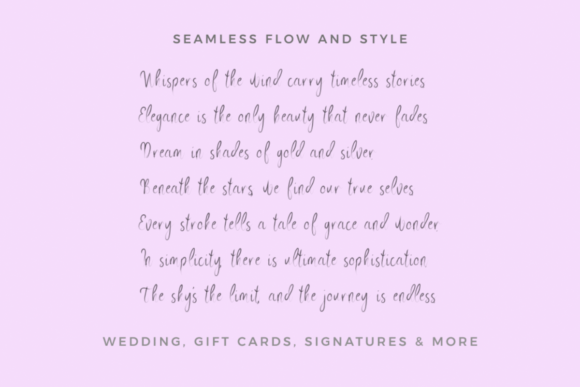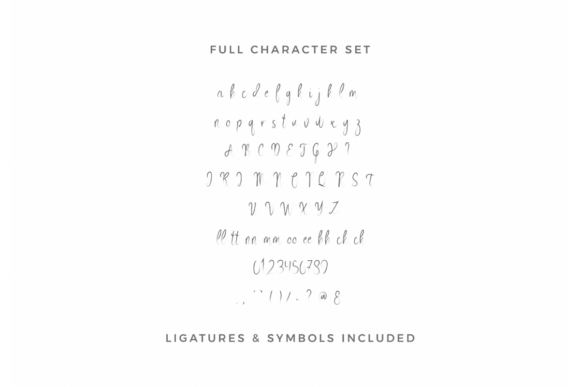
Introducing Adurey: The Elegant Script Font that Redefines Handwritten Typography
In the world of typography, few fonts have managed to capture the essence of elegance and authenticity as Adurey, a remarkably different concoction of handwritten, hand-lettered love intertwined in the form of a script font. With its beautifully unique design, Adurey personifies the perfect blend of traditional handwriting and modern design, making it an ideal choice for designers and crafters looking to add a touch of sophistication to their creative projects.
The Birth of Adurey: A Labor of Love
Adurey is more than just a font; it’s a labor of love that brings together the warmth of handwritten script and the sleekness of modern typography. Each letter has been meticulously crafted to ensure that the font exudes a sense of elegance and fluidity, making it perfect for a wide range of applications, from designs and logos to lettering and typography.
What Makes Adurey Stand Out?
So, what sets Adurey apart from other script fonts? Here are a few key features that make Adurey a standout:
- Unique Design: Adurey’s design is unlike any other script font out there. Its beautifully crafted letters are full of character and personality, making it perfect for designers looking to add a touch of whimsy to their projects.
- Elegant and Authentic: Adurey’s elegant and authentic feel makes it perfect for projects that require a sense of sophistication and refinement.
- Versatile: Adurey is incredibly versatile and can be used in a wide range of creative applications, from designs and logos to lettering and typography.
- Handwritten Charm: Adurey’s handwritten charm makes it perfect for projects that require a personal touch, such as wedding invitations, greeting cards, and more.
Applications of Adurey
Adurey’s versatility makes it perfect for a wide range of creative applications, including:
- Logo Design: Adurey’s unique design makes it perfect for logo design, allowing businesses to stand out from the crowd.
- Typography: Adurey’s elegant and authentic feel makes it perfect for typography projects, such as posters, flyers, and brochures.
- Lettering: Adurey’s handwritten charm makes it perfect for lettering projects, such as hand-drawn quotes, phrases, and more.
- Designs: Adurey’s versatility makes it perfect for a wide range of design projects, from business cards to website headers.
Why Choose Adurey?
So, why choose Adurey over other script fonts? Here are a few reasons:
- Unique Design: Adurey’s unique design ensures that your projects stand out from the crowd.
- Elegant and Authentic: Adurey’s elegant and authentic feel makes it perfect for projects that require a sense of sophistication and refinement.
- Easy to Read: Adurey’s clear and legible design makes it easy to read, even at small sizes.
- High-Quality: Adurey is a high-quality font that is designed to deliver exceptional results.
In conclusion, Adurey is a remarkably different concoction of handwritten, hand-lettered love intertwined in the form of a script font. With its beautifully unique design, Adurey personifies elegance and authenticity, making it perfect for designers and crafters looking to add a touch of sophistication to their creative projects. Whether you’re looking to create a logo, typography, lettering, or designs, Adurey is the perfect choice.
So, immerse yourself in Adurey’s world and experience the charm of handwriting meeting modern design. With Adurey, you can create stunning projects that are sure to leave a lasting impression.